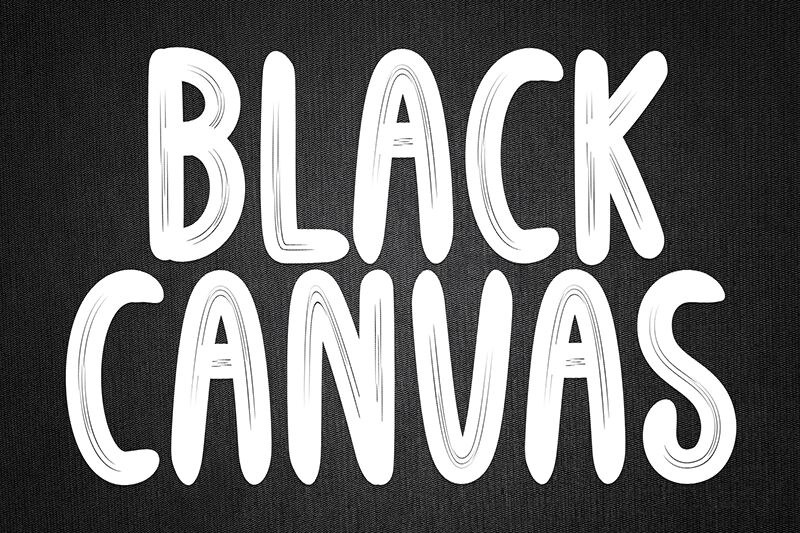
Black Canvas
Black Canvas font by Scratchones is a free brush font with a bold appearance and condensed width. Rounded characters and textured shading are decorative, casual, artistic, giving the typeface its unique ultimate look in scripts and all text written with it.